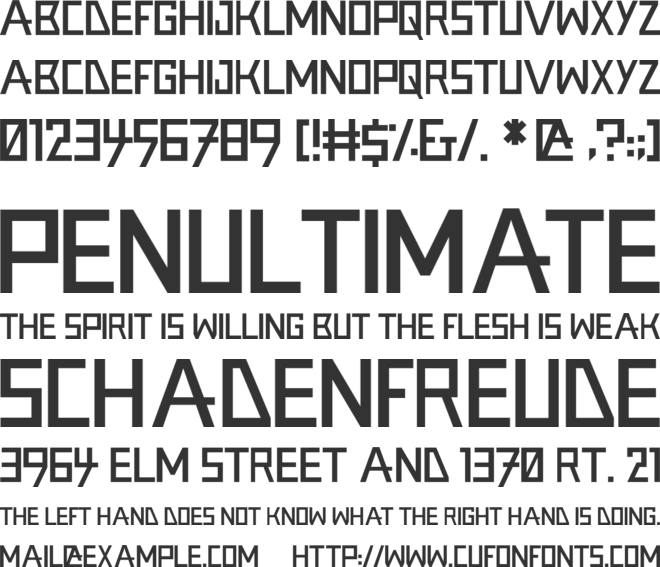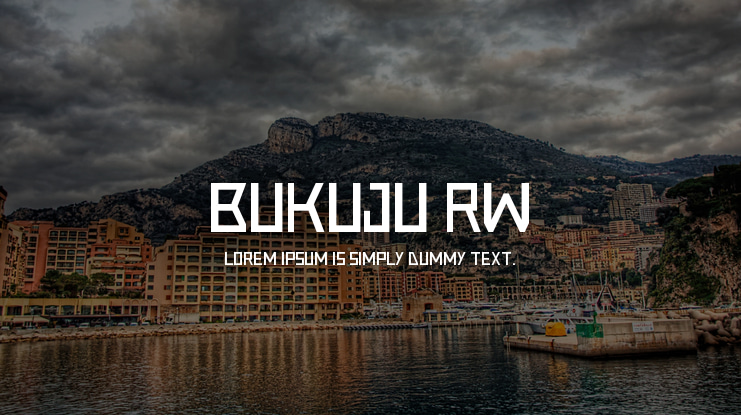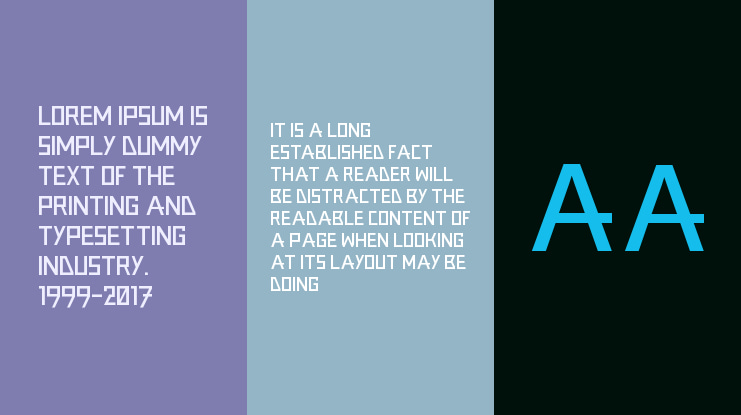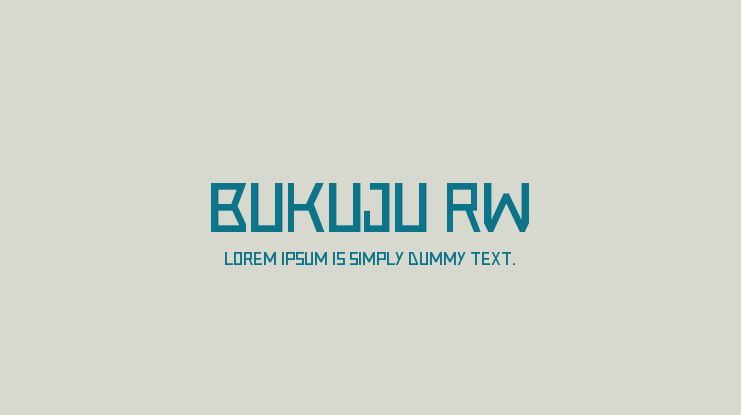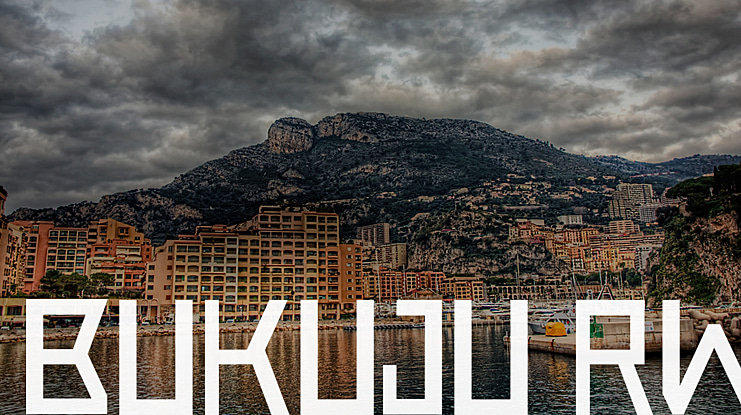
Bukuju RW Font
Robert Watts
"Inspired by 500 years of eastern feudism, the typeface seeks unity. displaying text in a demanding, precise fashion." robwattsdesign.com